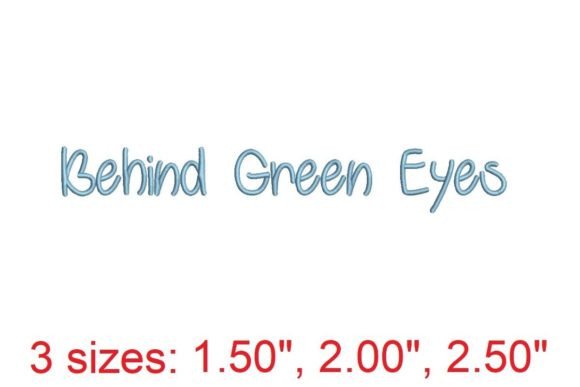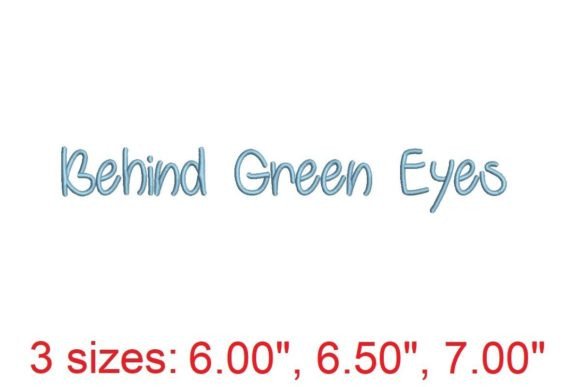
Behind Green Eyes Embroidery Font Review
The Behind Green Eyes Embroidery Font is a standout addition to any embroidery designer’s toolkit, especially for those preparing for craft fairs, handmade markets, and online sales. With its elegant and refined aesthetic, this font has the potential to elevate a wide range of craft fair products, from tote bag designs to apron embroidery. Its intricate details and soft curves make it ideal for adding a touch of sophistication to handmade products.
First Impressions: Elegance Meets Versatility
From the first glance, Behind Green Eyes Embroidery Font exudes an air of quiet elegance. It feels neither too bold nor too delicate, making it suitable for both modern and traditional styles. The font’s design suggests a premium quality that would appeal to Etsy sellers and small shop products looking to offer something unique. Whether used for tea towel embroidery or embroidered patches, it commands attention without overwhelming the viewer.
This font is particularly well-suited for back to school themed items, where a refined look can add value to student essentials like backpacks, water bottles, and notebooks. Its subtle charm makes it a great choice for commercial embroidery projects that aim to balance style with practicality.
Performance on Different Products
Behind Green Eyes Embroidery Font performs exceptionally well across a variety of handmade product types. On tote bags, it adds a polished finish that draws the eye, while on aprons, it enhances the overall visual appeal without being too distracting. For tea towel embroidery, the font's soft curves blend seamlessly with the fabric texture, creating a cohesive and professional look.
On caps and market bags, the font maintains its clarity, even when stitched onto curved surfaces. It also works well as an embroidered patch, offering enough detail to stand out when applied to jackets, backpacks, or accessories. For fabric pouches and pillow covers, the font’s elegant style adds a touch of class that can set your craft fair product apart from the competition.
Practical Selling and Production Considerations
One of the key strengths of Behind Green Eyes Embroidery Font is its versatility in production. It can be used as a small accent or as a large focal point, depending on the design needs. This flexibility makes it ideal for batch production, allowing you to create multiple finished products efficiently.
When it comes to photographing for online listings, the font holds up well under different lighting conditions. Its clean lines and balanced spacing ensure that it looks sharp in printable mockups and Etsy listings. However, it’s important to test the design on various thread colors and fabrics to ensure optimal contrast and visibility.
Careful-Use Notes for Embroidery Designers
While Behind Green Eyes Embroidery Font is visually appealing, there are a few considerations to keep in mind during the production process. The font contains some fine details that may require careful attention to stitch density to avoid overcrowding. On thick fabrics or textured towels, these details might not show as clearly, so it’s best to test the design on similar materials before mass production.
For curved cap surfaces or dark fabrics, adjusting the hoop size and using the right stabilizer can help maintain the integrity of the design. Additionally, when working with small lettering, it’s crucial to review the spacing to ensure readability and prevent distortion.
Impact on Visual Appeal and Customer Engagement
Behind Green Eyes Embroidery Font significantly enhances the visual appeal of any handmade product. Its elegant style attracts customer attention, making it a strong asset for booth display strength at craft fairs. When displayed on sample items, such as pillow covers or market bags, it creates a sense of quality and craftsmanship that resonates with buyers.
This font also contributes to brand consistency by offering a recognizable and professional look across different product lines. For digital embroidery files, it provides a cohesive design language that can be easily adapted for design assets and printable mockups. As an embroidery file, it supports a wide range of commercial embroidery applications, making it a valuable tool for Etsy sellers and boutique makers.
Embroidery Designer Tips for Success
To get the most out of Behind Green Eyes Embroidery Font, start by testing the design on scrap fabric to evaluate how it looks in real life. Check the thread colors against the fabric to ensure good contrast and visibility. Pay close attention to stitch density and spacing to maintain the font’s clarity and definition.
Confirm the appropriate hoop size for your project and use the right stabilizer to prevent shifting or puckering. Creating at least one real mockup before producing larger batches can save time and reduce errors. Compare different fabric colors to find the best match for your intended finished product.